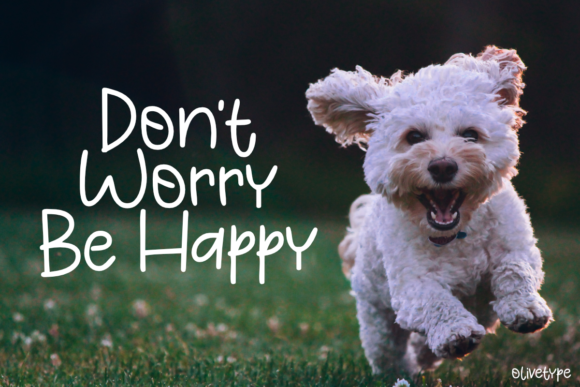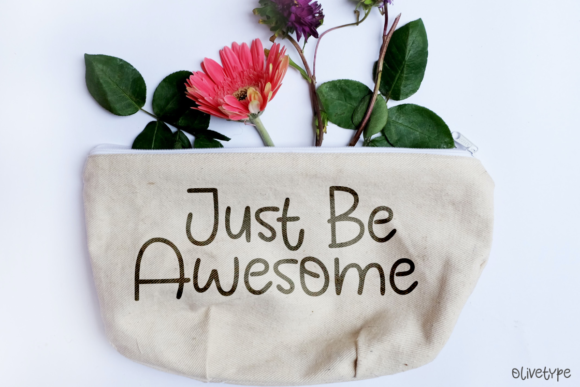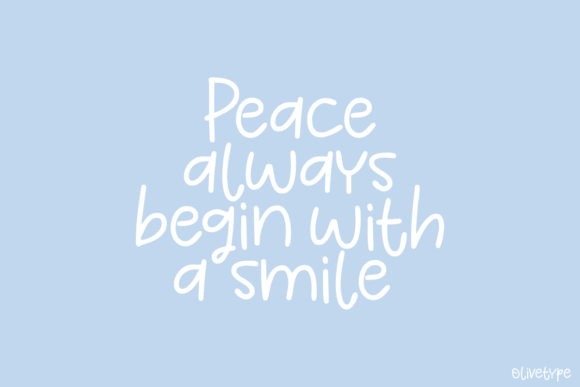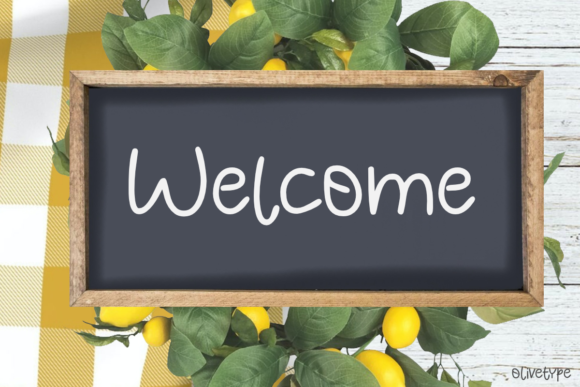
Happy Face Font
About Happy Face Font
Happy Face is a cute handwritten font, featuring a lovely style. No matter the topic, this font will be an incredible asset to your fonts’ library, as it has the potential to elevate any creation.